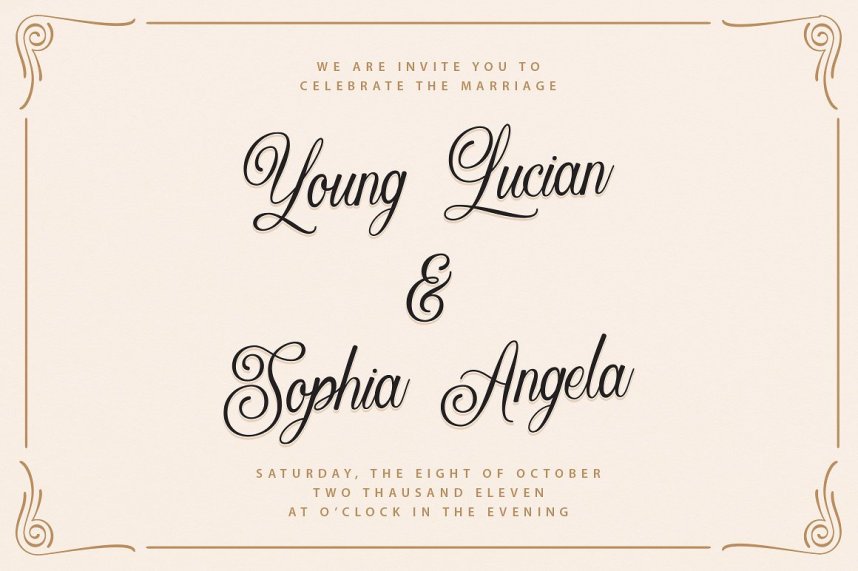
Rosaline Script Font
Introducing Rosaline Script Font! Rosaline designed by sizimon, this is a premium font, are sold on creativemarket, but it was great, it is free today for download. Rosaline is a modern callugraphy . Rosaline a beautiful for logotype, website header, fashion design,wedding card design and any more. Rosaline comes with elegant style. It contains a full set of lower & uppercase letters, a large range of punctuation, numerals, and multilingual support.